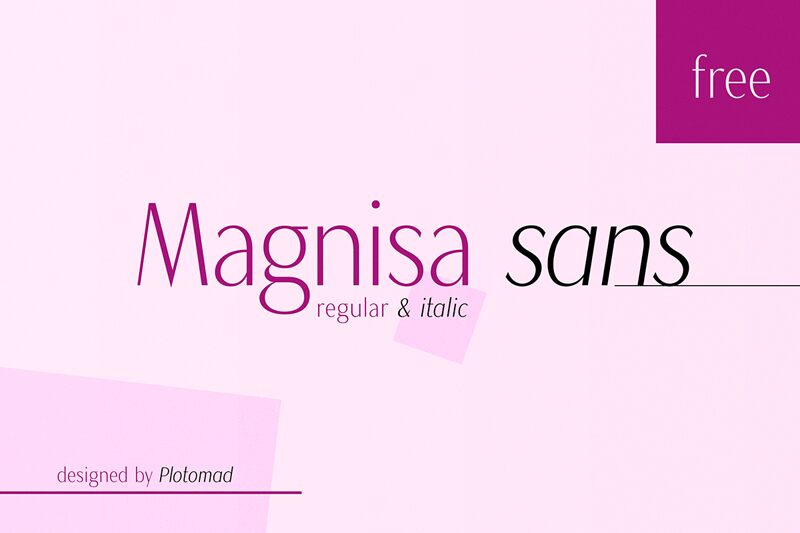
Magnisa Sans, crafted by Aleksey Ryabov, embodies a refined elegance through its graceful light font style. This sans serif typeface captivates with its clean lines and airy disposition, offering a contemporary yet approachable aesthetic. The subtle curves lend a softness that enhances readability while maintaining sophistication.
Visually striking, Magnisa Sans serves as a versatile choice for various design contexts, from minimalist branding to elegant editorial layouts. Its unique appeal makes it ideal for modern websites, chic advertising campaigns, and stylish print materials. Wherever clarity meets beauty, Magnisa Sans stands out as an exceptional font that elevates any project with its understated charm and contemporary flair.
Magnisa Sans